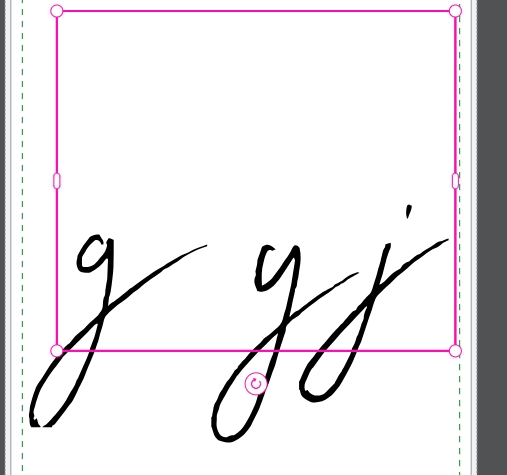
The lowercase “g” in the “Beautiful” font appears to be cut off at the bottom, both in the design area and on preview images. Adjusting the line spacing makes no difference. Curiously, the “y,” which has a longer descender, displays correctly!
Ahh yes, I’ve noticed it does that. I don’t know why I never reported it haha. I guess I just accepted the font just ‘did that’ ![]()